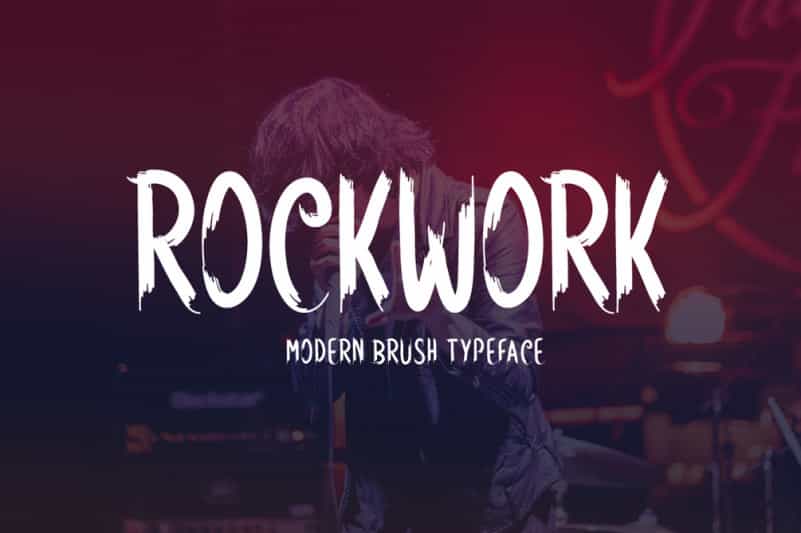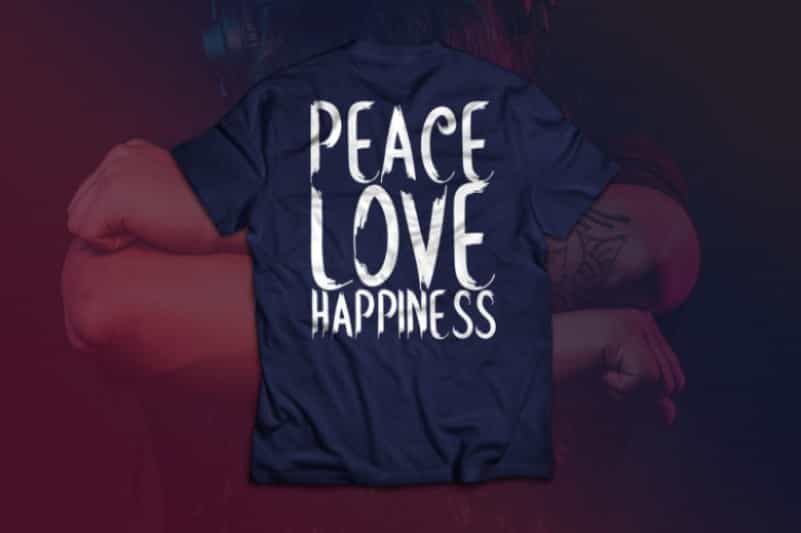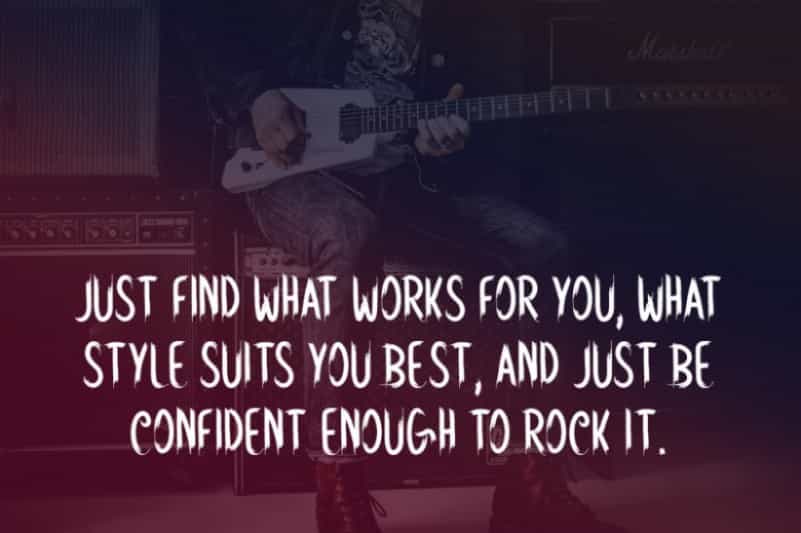
Rockwork Font
Rockwork Font is one of the modern brush fonts that have just been released recently. Rockwork is ideal for stationery, logo design, t-shirts, paper and print, website header, photo frame, flyer, music cover, poster, image slider and much more.